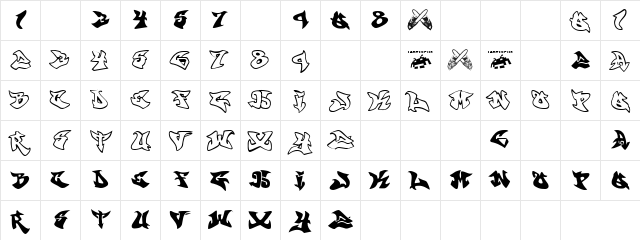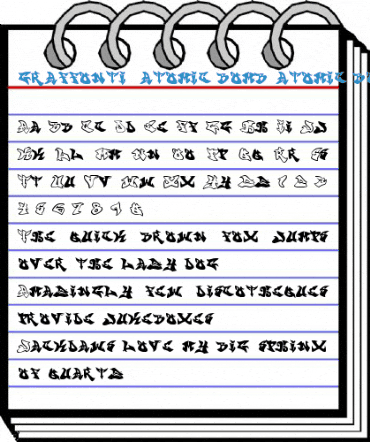
graffonti .atomic.bomb atomic.bomb
Style: atomic.bomb
Designer: xero harrison
Design Context for graffonti .atomic.bomb
graffonti .atomic.bomb is a composed and adaptable typeface that performs quietly and consistently across a wide range of design contexts.